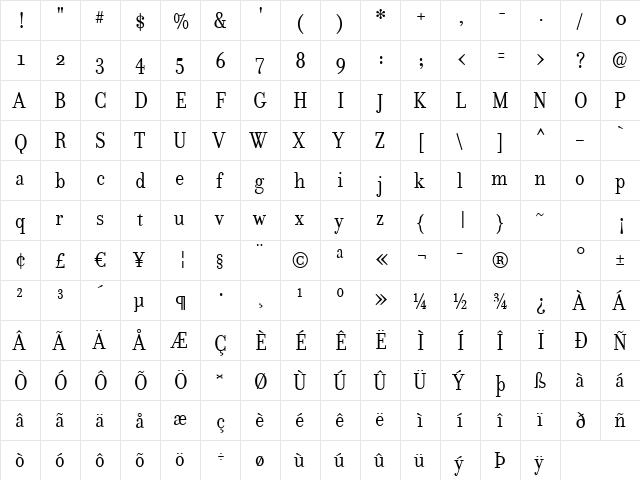
Donatora OSF Regular
Design Context for Donatora OSF Typeface
Donatora OSF offers clean, dependable letterforms without strong stylistic allegiance, making it a practical choice for designers who need flexibility.